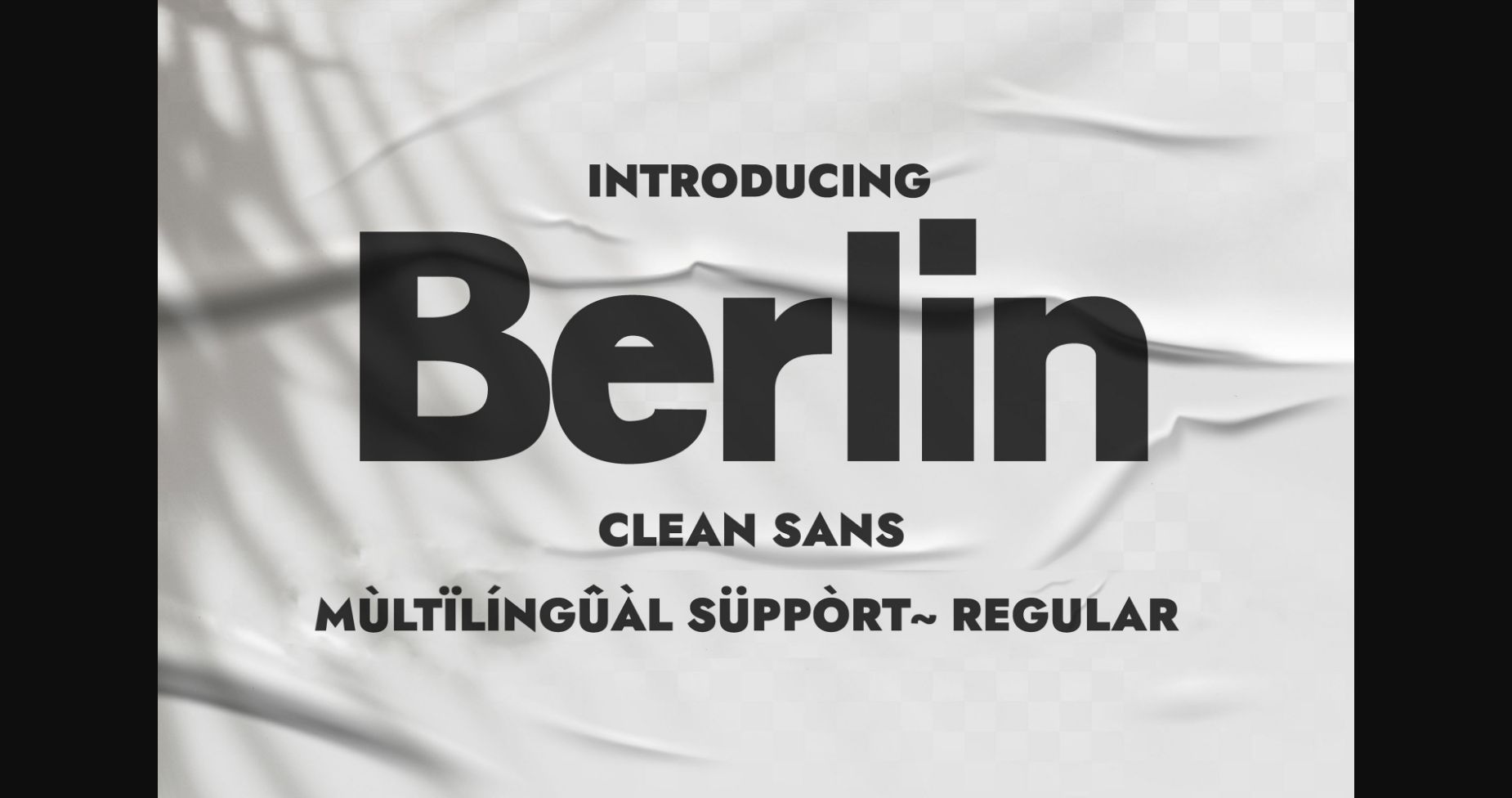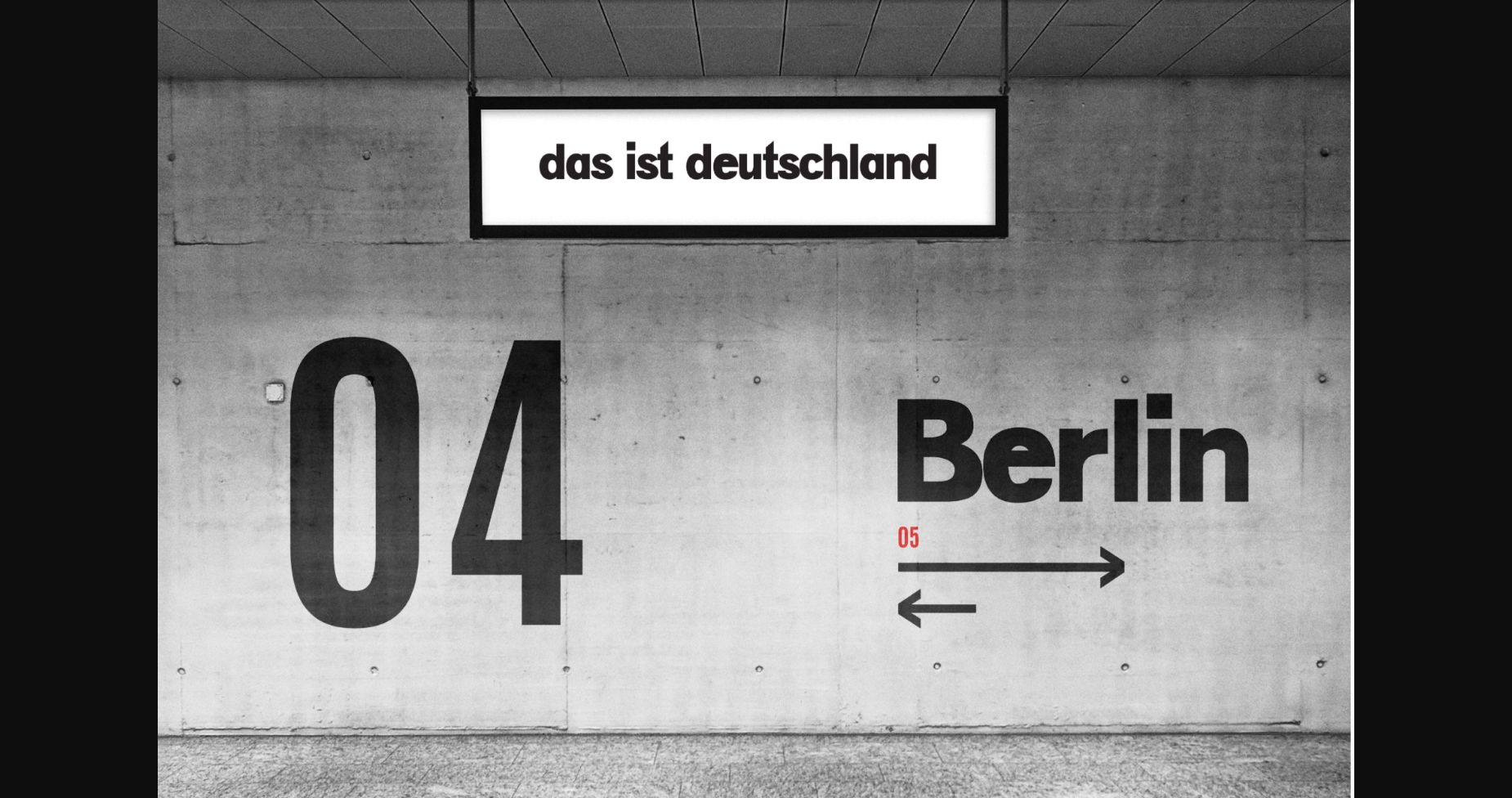
About Berlin Font
Berlin as the name suggests is a sans serif grotesque clean, minimalist, and geometric typeface. it was inspired by Deutsche, swiss design rules. It adapts wonderfully in contexts such as designing labels for perfumes, cosmetics, magazine covers, posters, manifests, flyers, social posts, and fashion. Use it in your creations so you can notice how fastly it becomes one of your favorite fonts.